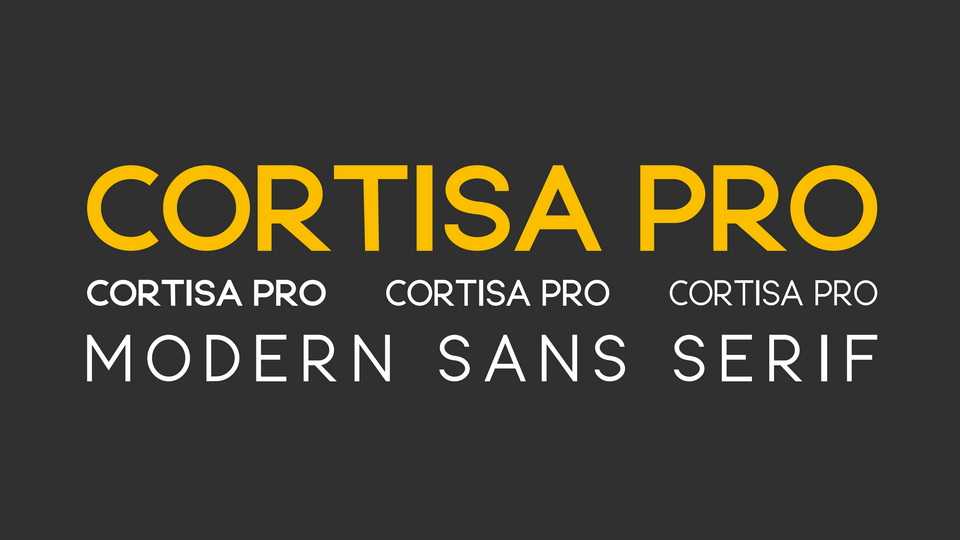
Download Cortisa typeface, a modern geometric all caps sans serif font family with three weights. Cortisa is best for posters, headlines, short texts and display use.
Designer: Ikramul Hadi Khan